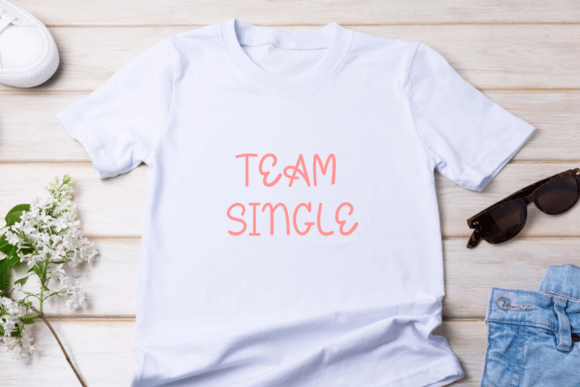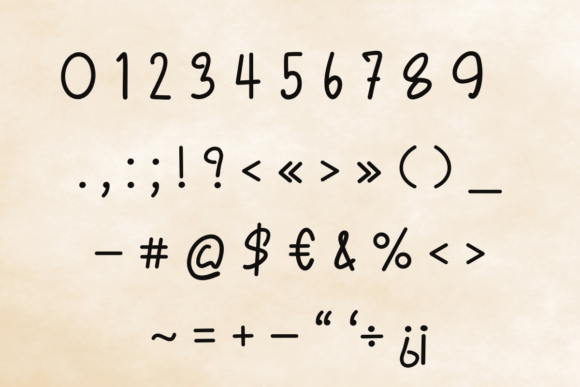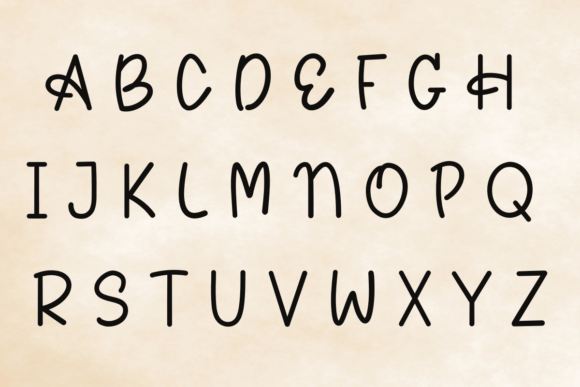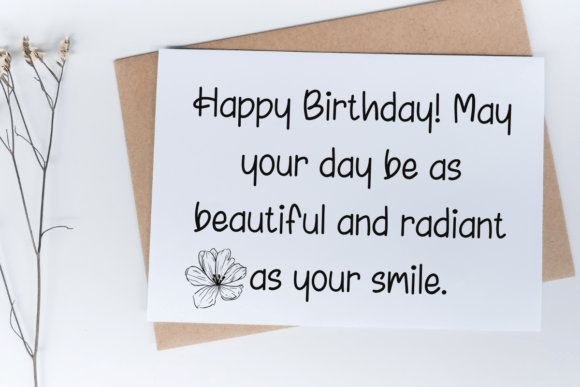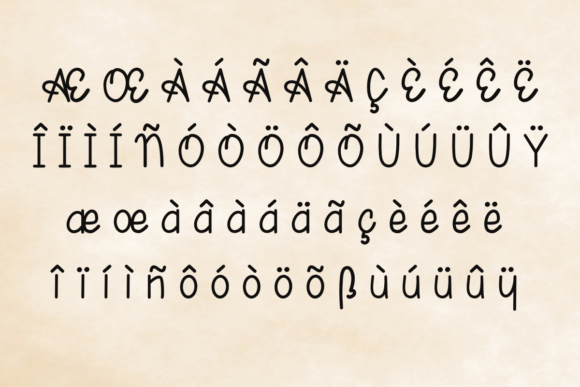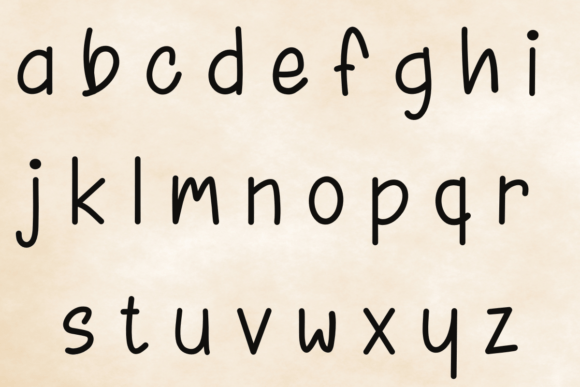
Discover the Charm of Blossom Breeze Font: A Playful Handwritten Delight
Are you a designer or crafter looking for a unique and captivating font to elevate your creative projects? Look no further than the Blossom Breeze Font, a playful handwritten font that is sure to steal your heart with its incredibly distinct and timeless style.
The Beauty of Blossom Breeze Font
Blossom Breeze Font is a beautiful, hand-crafted font that exudes a sense of playfulness and whimsy. Its unique and elegant style makes it perfect for a wide range of design projects, from wedding invitations and party decorations to branding and advertising materials. The font’s distinctive features, such as its delicate strokes and charming letterforms, will add a touch of sophistication and personality to any design.
What Makes Blossom Breeze Font So Special?
So, what sets Blossom Breeze Font apart from other fonts? Here are just a few reasons why this font is a standout:
- Playful yet elegant: Blossom Breeze Font strikes the perfect balance between playfulness and elegance, making it suitable for a wide range of design projects.
- Unique and distinctive: The font’s hand-crafted design ensures that each letterform is unique and full of character, adding a personal touch to your designs.
- Timeless style: Unlike trendy fonts that quickly go out of style, Blossom Breeze Font has a timeless quality that will ensure your designs remain stylish for years to come.
- Highly versatile: Whether you’re designing a wedding invitation, a logo, or a social media graphic, Blossom Breeze Font is highly versatile and can be used in a variety of contexts.
How to Use Blossom Breeze Font in Your Designs
Ready to fall in love with Blossom Breeze Font and start using it in your designs? Here are a few ideas to get you started:
- Wedding invitations and decorations: The font’s elegant and playful style makes it perfect for wedding designs, from invitations and save-the-date cards to party decorations and favors.
- Branding and advertising: Use Blossom Breeze Font to add a touch of personality to your brand’s logo, packaging, or advertising materials.
- Social media graphics: The font’s playful style makes it ideal for social media graphics, such as Instagram posts, Facebook covers, and Twitter headers.
- DIY crafts: Blossom Breeze Font is also perfect for DIY craft projects, such as handmade cards, gift tags, and scrapbooking.
Tips for Getting the Most Out of Blossom Breeze Font
To get the most out of Blossom Breeze Font, here are a few tips to keep in mind:
- Experiment with different colors: The font’s playful style lends itself well to bright, bold colors, so don’t be afraid to experiment and find the perfect hue for your design.
- Mix and match with other fonts: Blossom Breeze Font pairs well with a variety of other fonts, so feel free to get creative and experiment with different font combinations.
- Use it in combination with graphics and illustrations: The font’s playful style makes it perfect for use in combination with graphics and illustrations, such as flowers, leaves, or other whimsical designs.
In conclusion, Blossom Breeze Font is a playful handwritten font that is sure to capture your heart with its incredibly distinct and timeless style. With its unique and elegant design, high versatility, and endless creative possibilities, this font is a must-have for designers and crafters looking to add a touch of personality to their projects. So why wait? Fall in love with Blossom Breeze Font today and start creating spectacular designs that will leave a lasting impression!